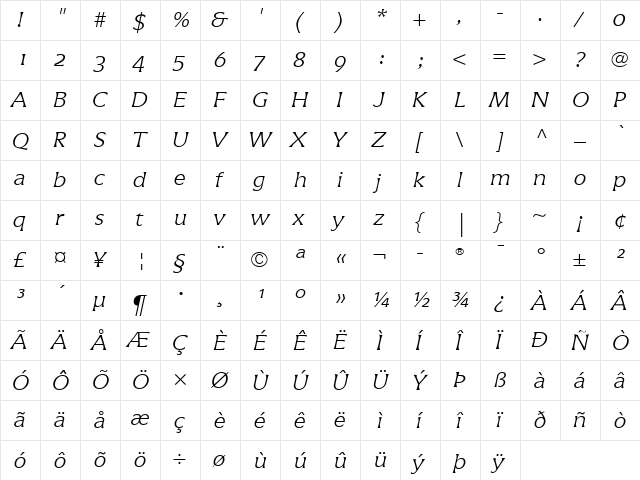
Icone LT LightOsF Italic
Design Context for Icone LT LightOsF Typeface
Icone LT LightOsF offers clean, dependable letterforms without strong stylistic allegiance, making it a practical choice for designers who need flexibility. The dynamic lean of this cut emphasises speed and emphasis in any layout. Its slender proportions lend an understated elegance to any composition.
Pro Tip: Use Icone LT LightOsF for emphasis, pull quotes, and subheadings where its slanted energy can add rhythm to the layout.